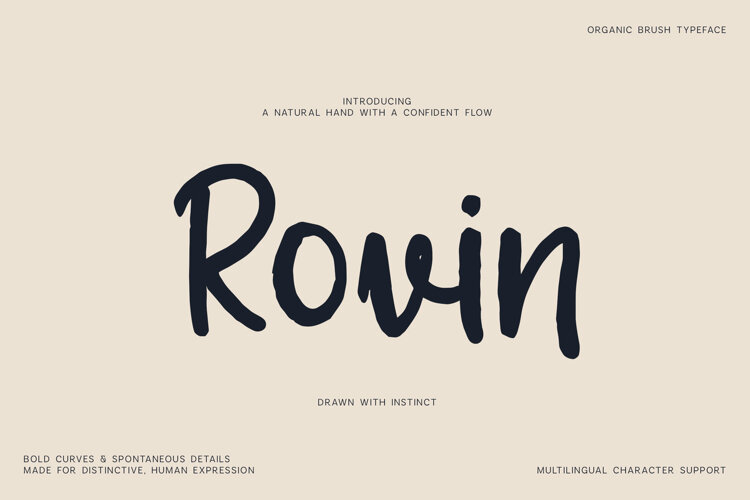
Rovin Organic Brush Handwritten Font
Rovin is a natural brush handwritten font created with fluid strokes, organic curves, spontaneous details, and an unmistakably handmade personality. Its relaxed rhythm captures the character of genuine hand lettering while remaining clear, versatile, and easy to use in professional design projects.
Designed for creative work that needs warmth and individuality, Rovin is perfect for logos, brand identities, packaging, product labels, posters, apparel, merchandise, social media templates, editorial layouts, advertisements, invitations, greeting cards, stationery, quotes, headlines, food and beverage branding, lifestyle products, and handmade businesses.
The naturally irregular letterforms add personality without sacrificing readability, making Robin especially effective for modern brands that want to feel approachable, authentic, and creative.
Rovin includes a complete uppercase and lowercase alphabet, numbers, punctuation, symbols, accented characters, and extensive multilingual Latin support.
- Uppercase alphabet
- Lowercase alphabet
- Numerals
- Symbols
- Extended accented characters
- Multilingual Latin language support